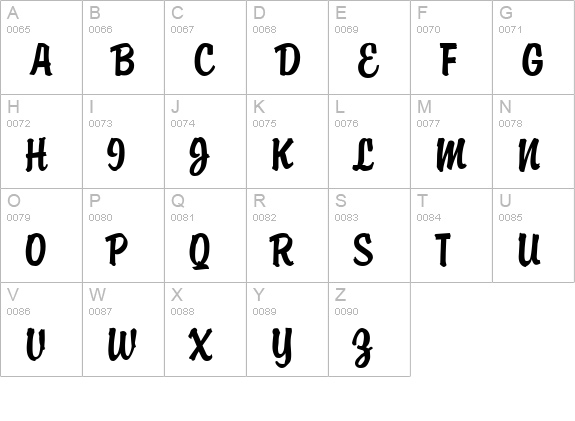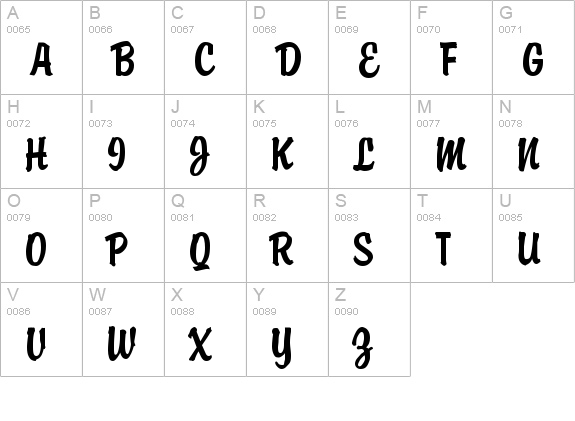
Brody Regular is the standard, neutral variant in the Brody typeface family \xE2\x80\x94 well suited to general body text, paragraphs, and standard typographic work.
Brody Regular font is a versatile and modern typeface that brings a touch of sophistication to any design project. With its clean lines and elegant curves, this font is perfect for a wide range of applications, from branding to editorial design. The timeless appeal of Brody Regular makes it a great choice for both print and digital projects. Best of all, Brody Regular font is available for free download at FontsMarket.com. Whether you're a seasoned designer looking to add a new font to your collection or a beginner searching for the perfect typeface, Brody Regular is sure to impress. Don't miss out on this opportunity to enhance your designs with this beautiful and stylish font. Download Brody Regular today and take your projects to the next level.